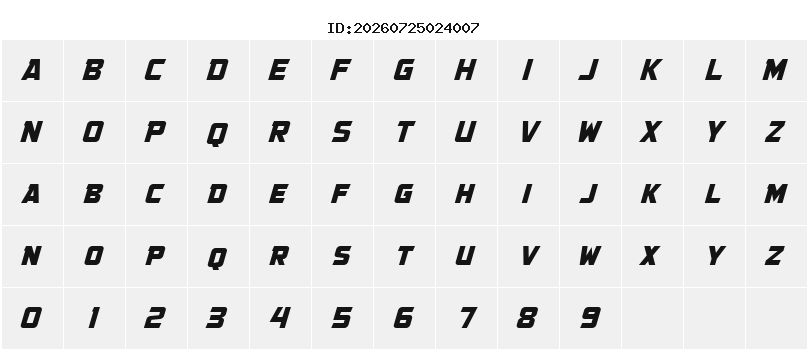
• Font Name: Government Agent BB
• Full Font Name: Government Agent BB Italic
• Designer: Nate Piekos
Government Agent BB.ttf is a modern, elegant sans-serif font designed for ultimate readability and visual harmony. Perfect for branding, headlines, web design, and print materials.